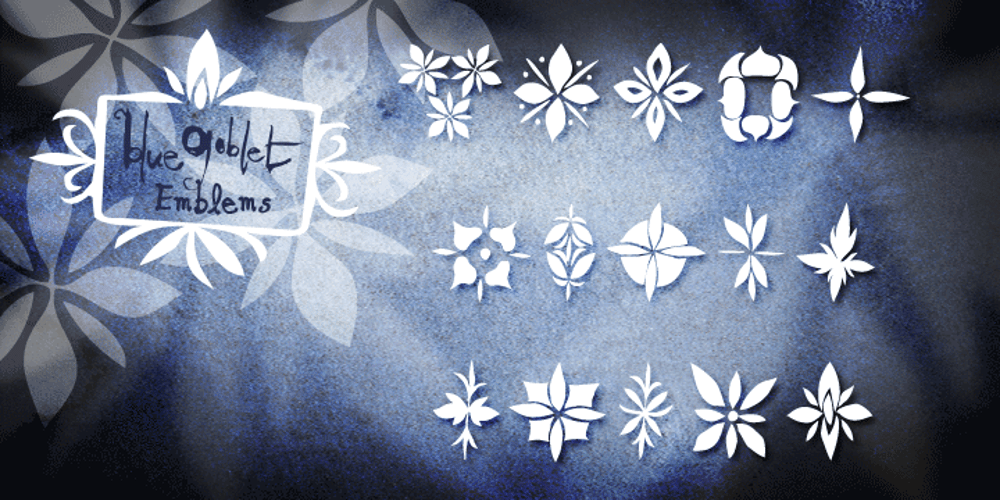
Blue Goblet Emblems
Blue Goblet Emblems font
Blue Goblet Emblems Font Family was designed by Cory Godbey and published by insigne. Blue Goblet Emblems contains 1 styles and family package options. The designer-favorite Blue Goblet family has grown with Blue Goblet Emblems. Blue Goblet Emblems are unique and abstract symbols that are rendered in Cory Godbey’s unique illustration style. These creative and dynamic ornaments can be resized easily without any loss of quality, and can easily be converted to outlines and modified. These ornaments can be combined to form unique compositions or inserted directly into layouts. Combine them to form unique patterns and motifs. Please see the sample .pdf to see all 58 ornaments in action, and be sure to check out the original Blue Goblet brush script and Blue Goblet ornaments, frames and vignettes and florals. Blue Goblet Emblems is a collaboration between insigne Design and Portland Studios. Use this sample .pdf as a guide to quickly refer to your favorite emblems. All the ornaments in this guide are sized at 75pt, and the copy and headers are set in Blue Goblet.